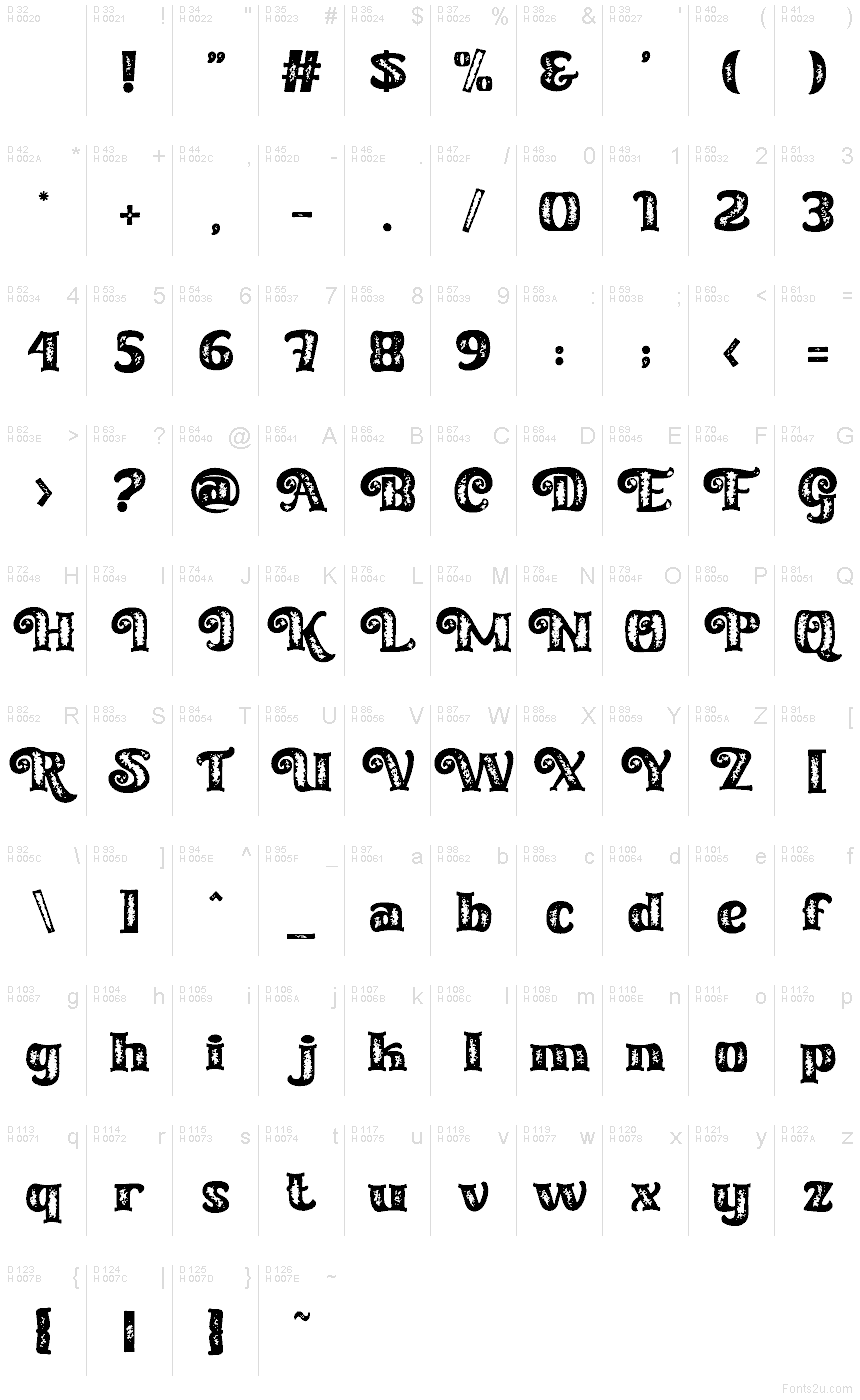
Curly Keken Texture
Curly Keken Texture font by PutraCetol Studio is a bold display typeface with a vintage feel and romantic touch. Eroded with decorative flourishes, the font is simultaneously artistic and charming with a textured surface created through various shades of black. Such style distinguishes it from commonly used digital fonts for an authentic handwritten look.
Use it on invitations, greeting cards, initials, gifts, poems, interior design projects related to quotes or phrases, and branding items for fashion or beauty industries. The free decorative font can also be included in book titles (novels mostly), magazines (covers or articles), and album covers.